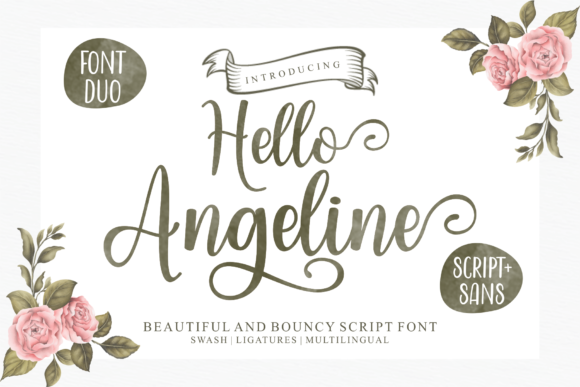
Voyage into the realm of elegance and charm with Hello Angeline, a captivating duo font that harmonizes a graceful script style with a laid-back sans serif. Embark on a creative journey where your designs transcend the ordinary and embrace a modern flair. Unleash your imagination and watch as your visions materialize into stunning wedding invitations, captivating stationary art, eye-catching social media posts, and heartwarming greeting cards.
Hello Angeline's script font dances across the page with a fluidity that mimics the strokes of a calligraphy master. Its elegant curves and delicate swirls evoke a sense of timeless sophistication, adding a touch of luxury to any project. The sans serif font, with its clean lines and understated charm, provides a sturdy foundation, ensuring that your designs remain legible and impactful.
This versatile font duo lends itself effortlessly to a multitude of applications. Create beautiful branding materials that exude professionalism and creativity. Design logos that leave a lasting impression, business cards that command attention, and brochures that captivate audiences. With Hello Angeline as your creative companion, the possibilities are endless.
Enter the world of Hello Angeline and discover a treasure trove of creative opportunities. Let your imagination soar, let your designs flourish, and let your projects bloom with beauty. Embrace the allure of this enchanting font duo and embark on a creative journey that will leave you spellbound.